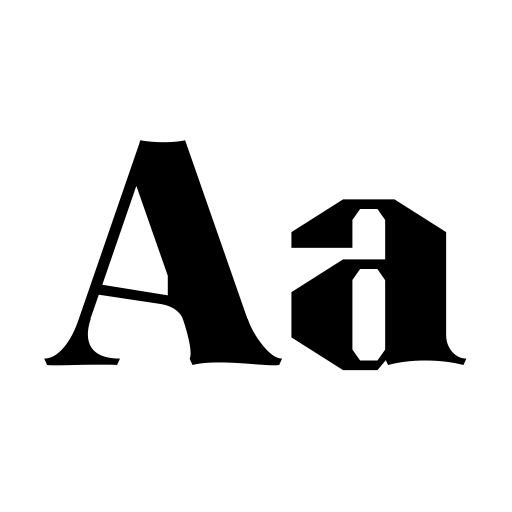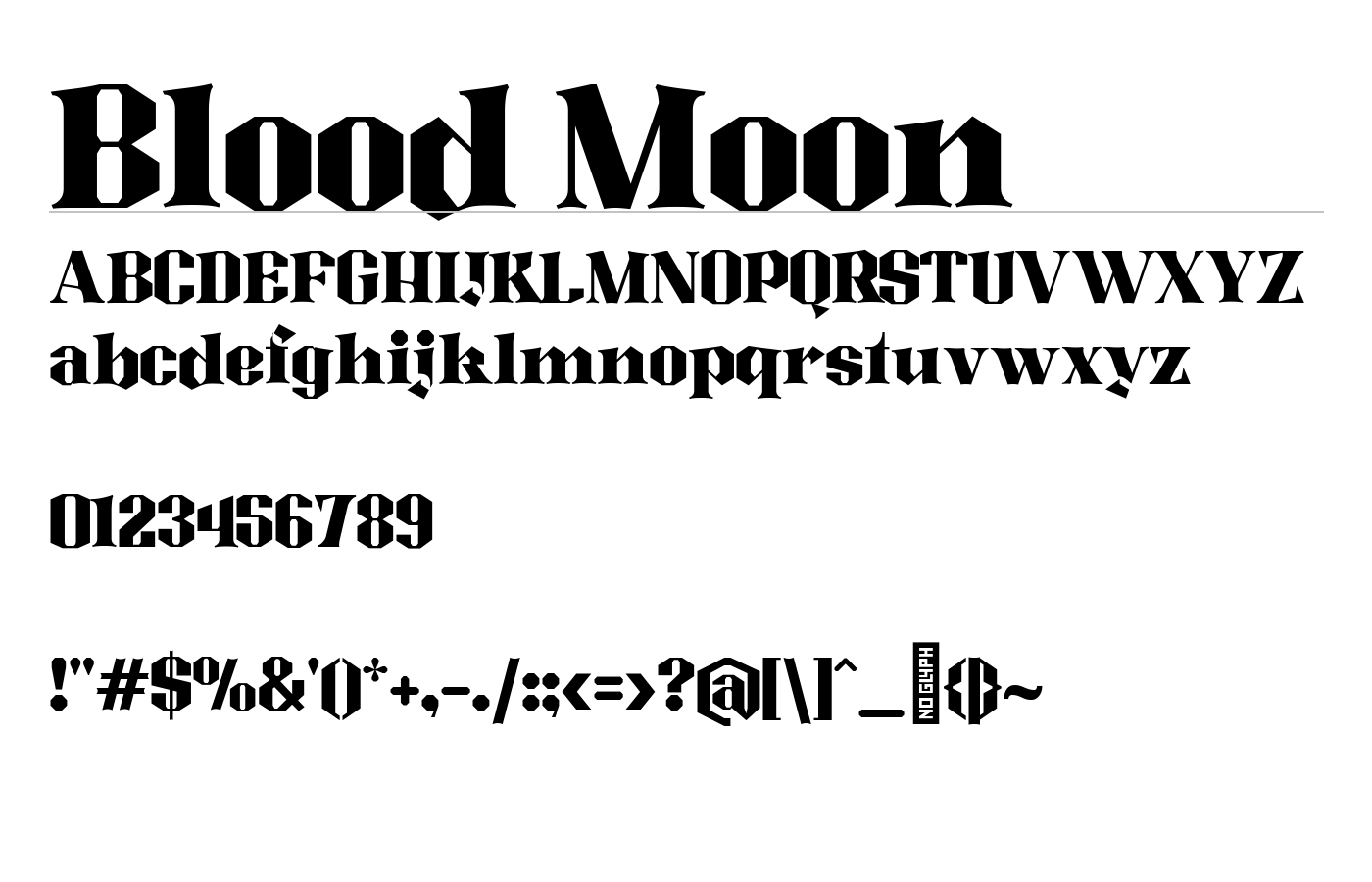
Blood Moon is a bold, condensed blackletter-style font with sharp, angular strokes and a strong, gothic personality. Its high contrast and dramatic forms make it perfect for creating striking headlines, logos, and designs that need a dark, edgy, or vintage medieval vibe. This font works best in display settings where its intricate details can stand out, adding a bold and intense character to fashion, music, or Halloween-themed branding.
Blood Moon Font
About Blood Moon Font
| Font family | Blood Moon Font |
| Designer | Ardyana Putra |